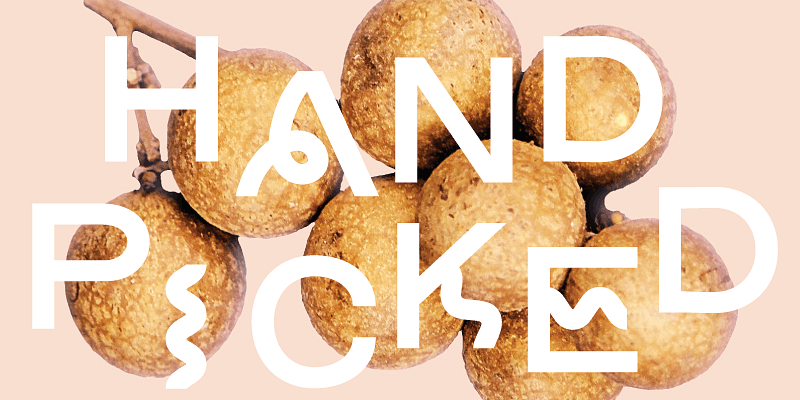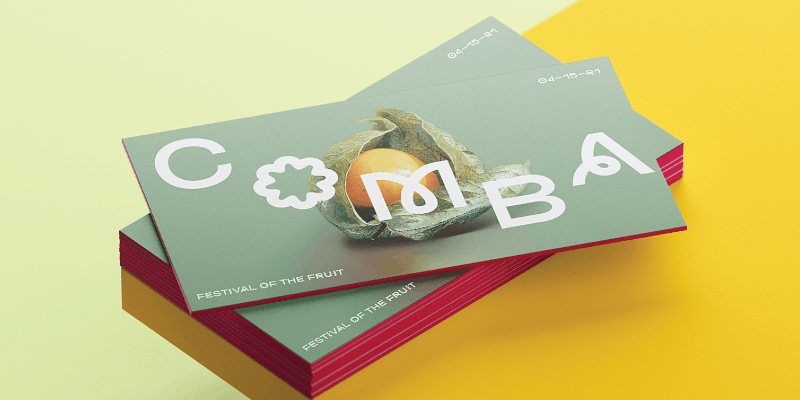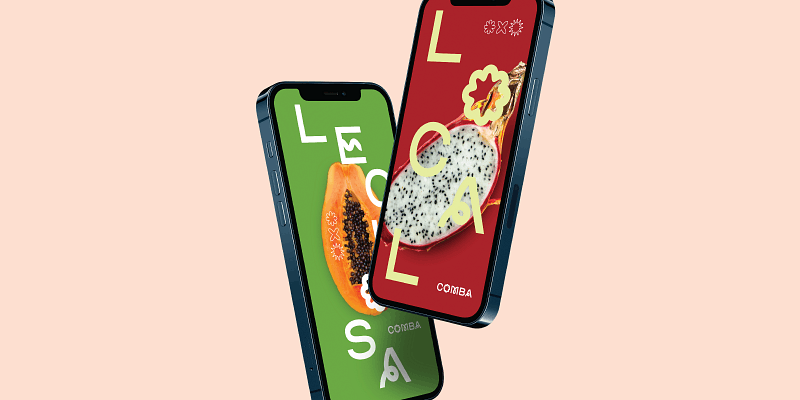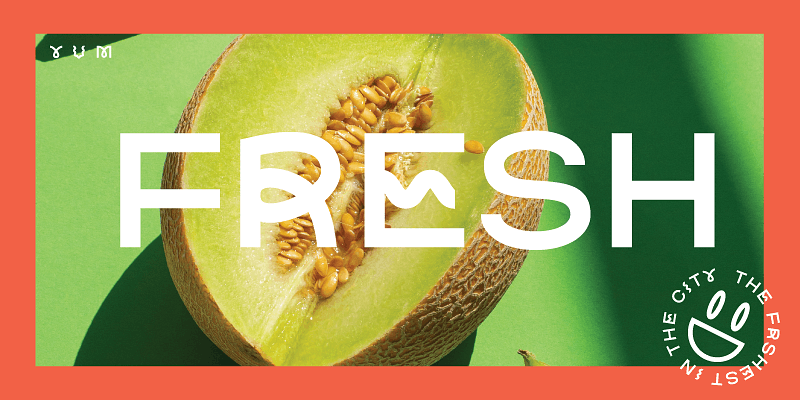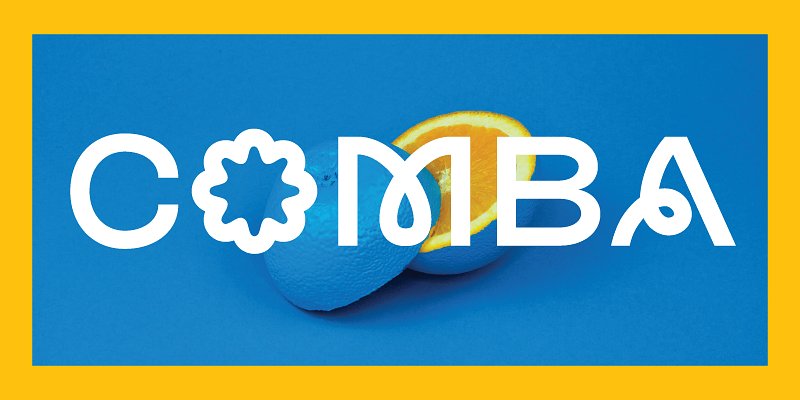
COMBA is a quirky all caps display font that is perfect for grabbing attention from afar. It has just enough eye-catching letters to pull the reader in and make them smile. It’s summer playful and lighthearted.